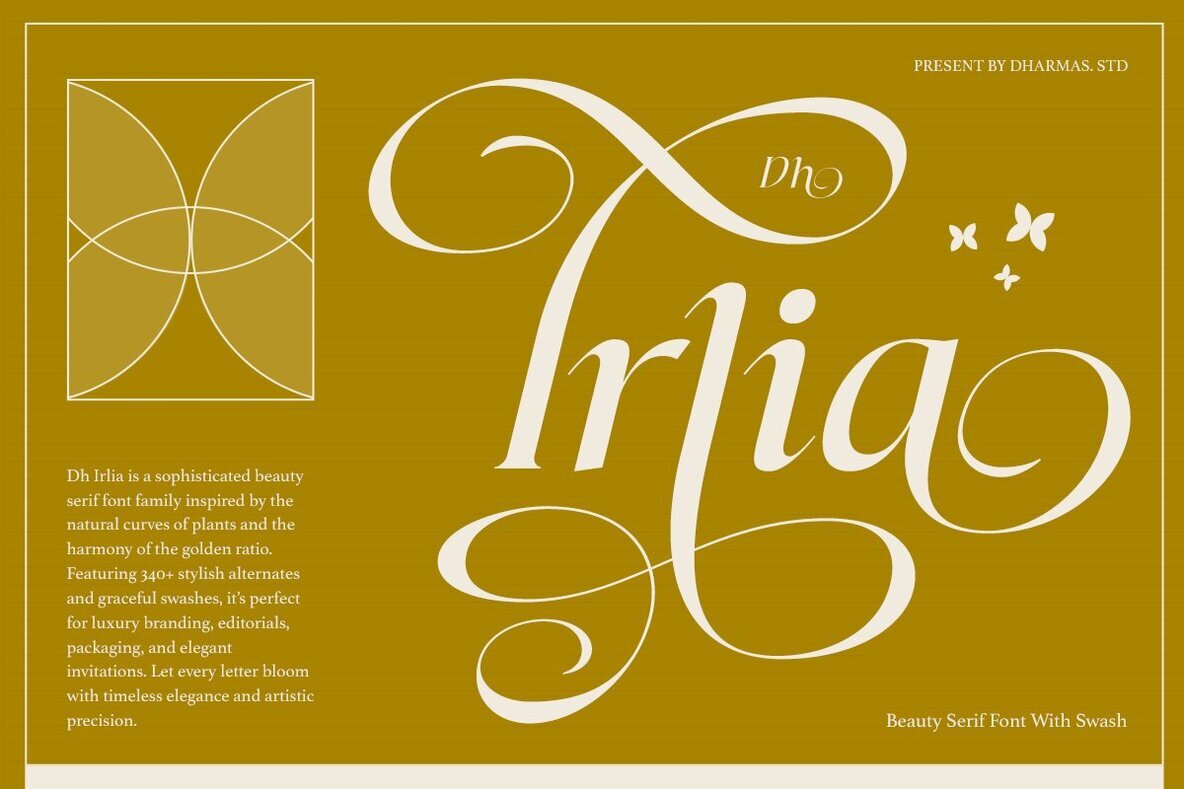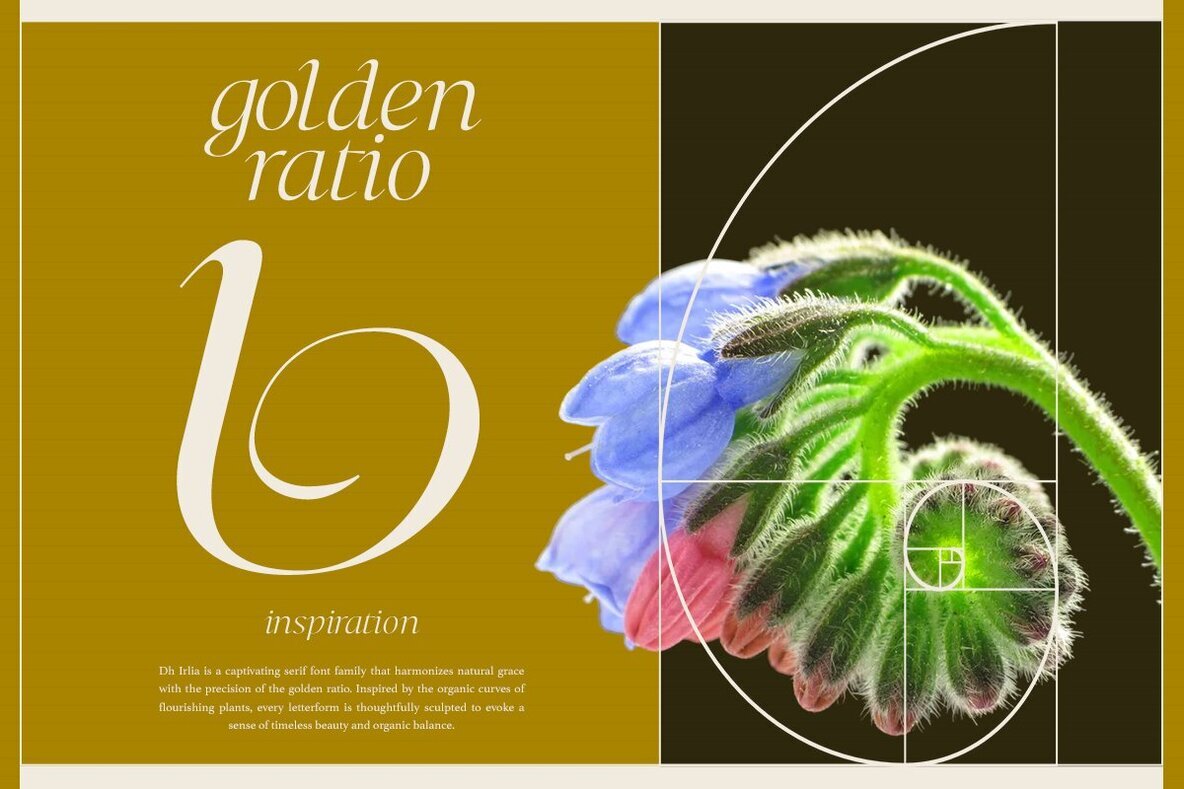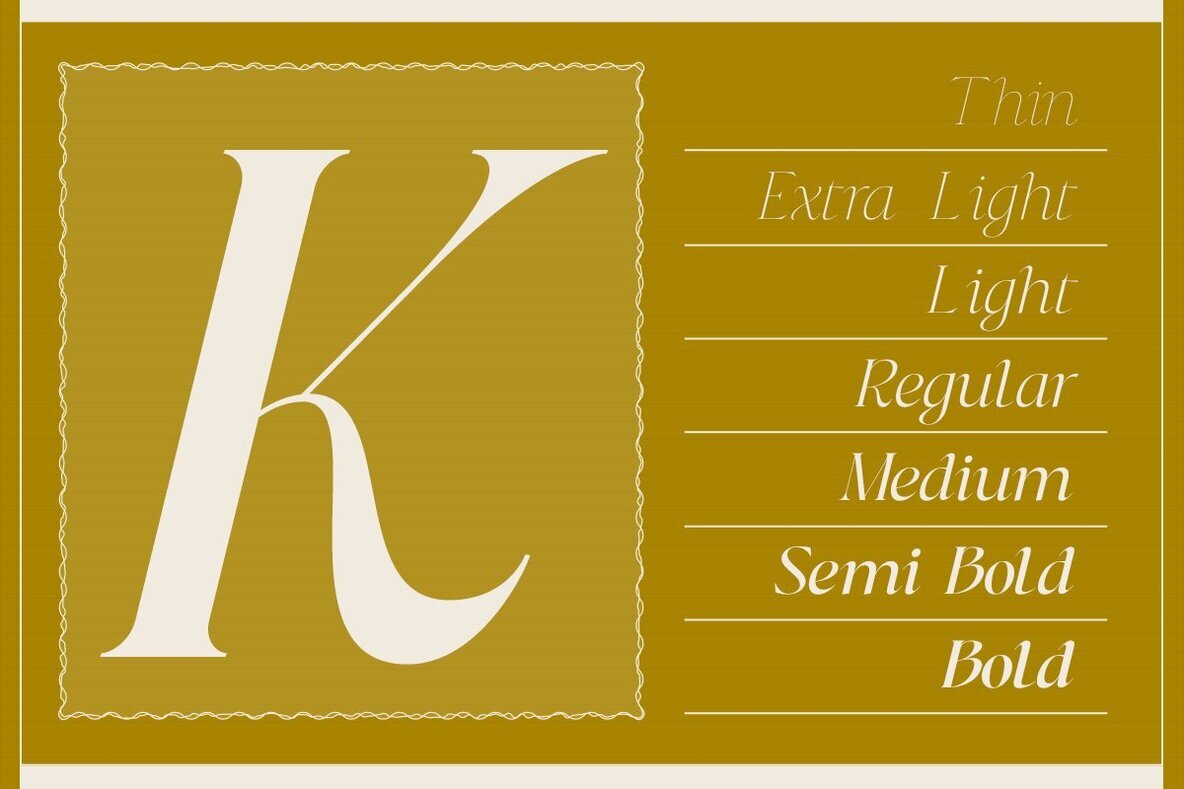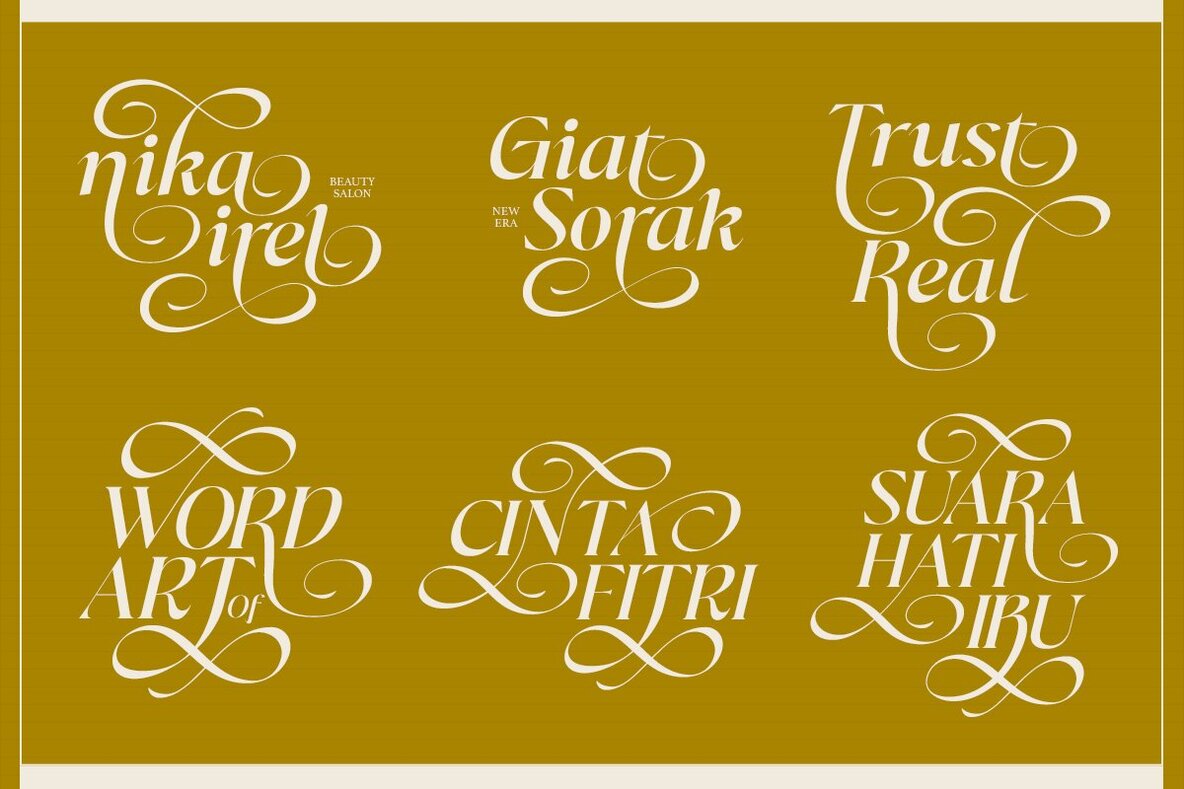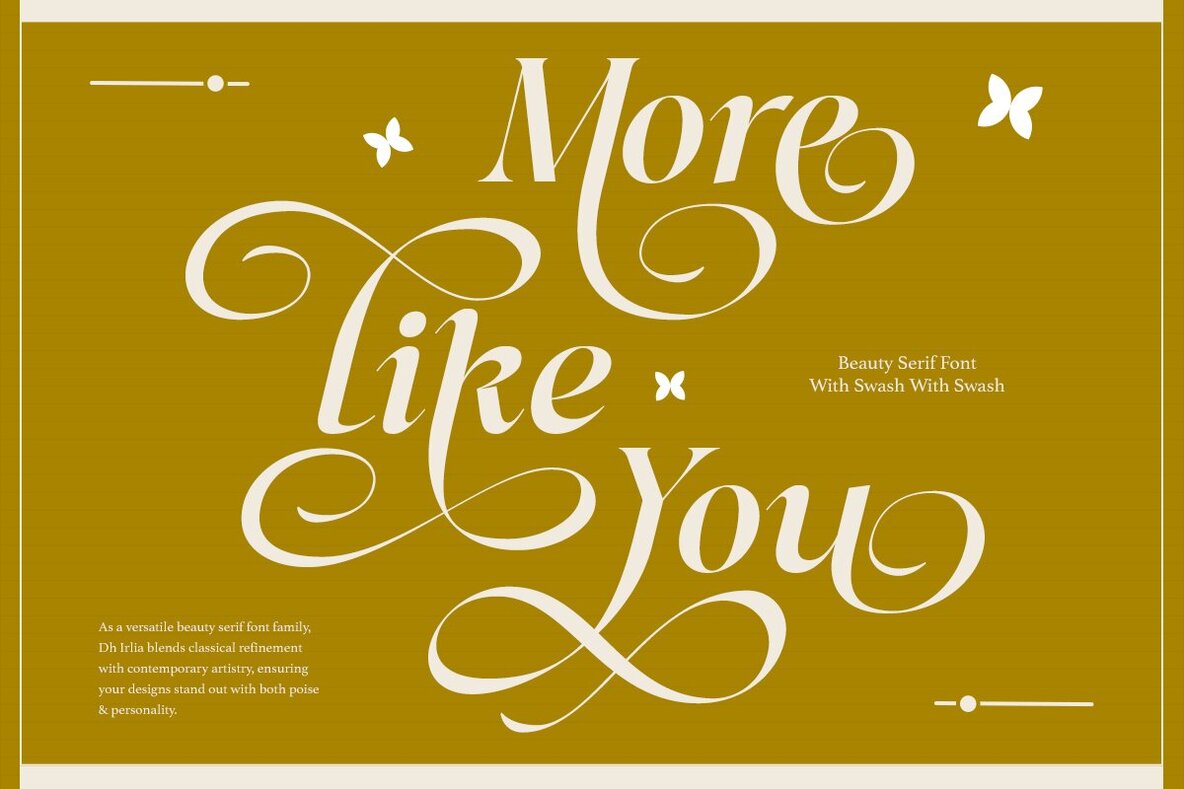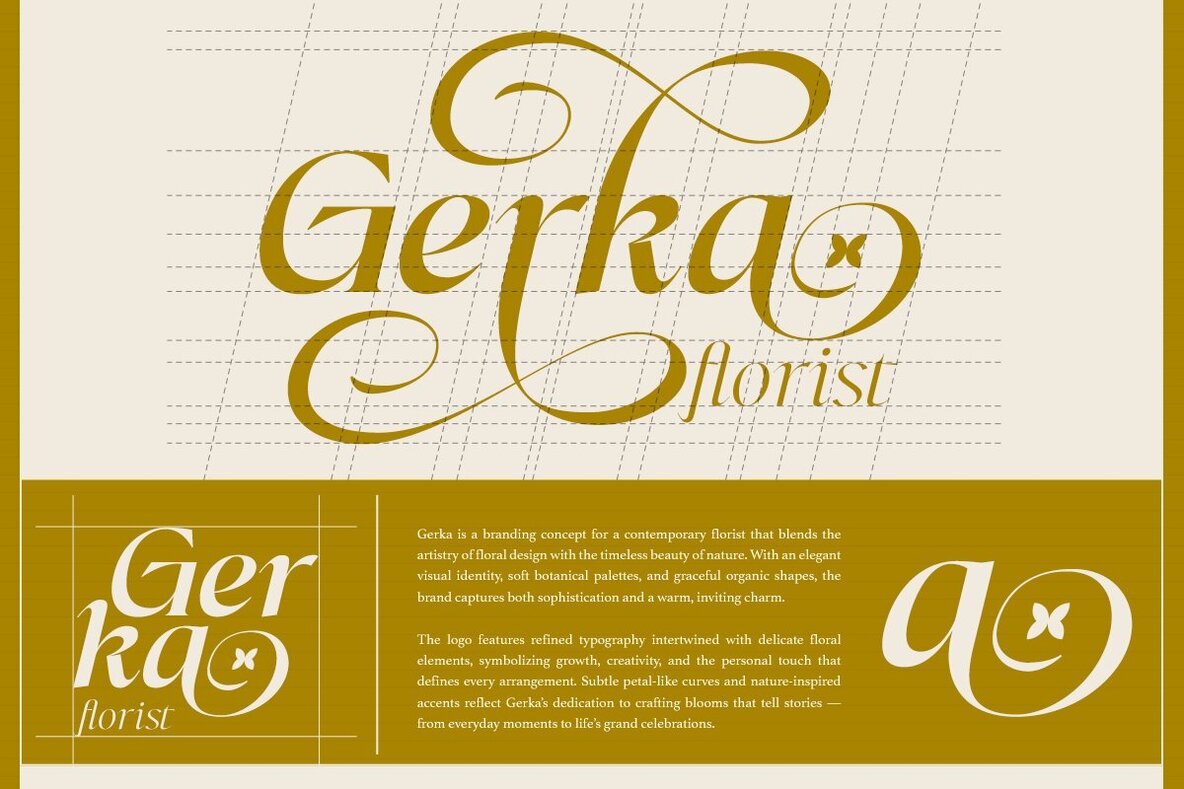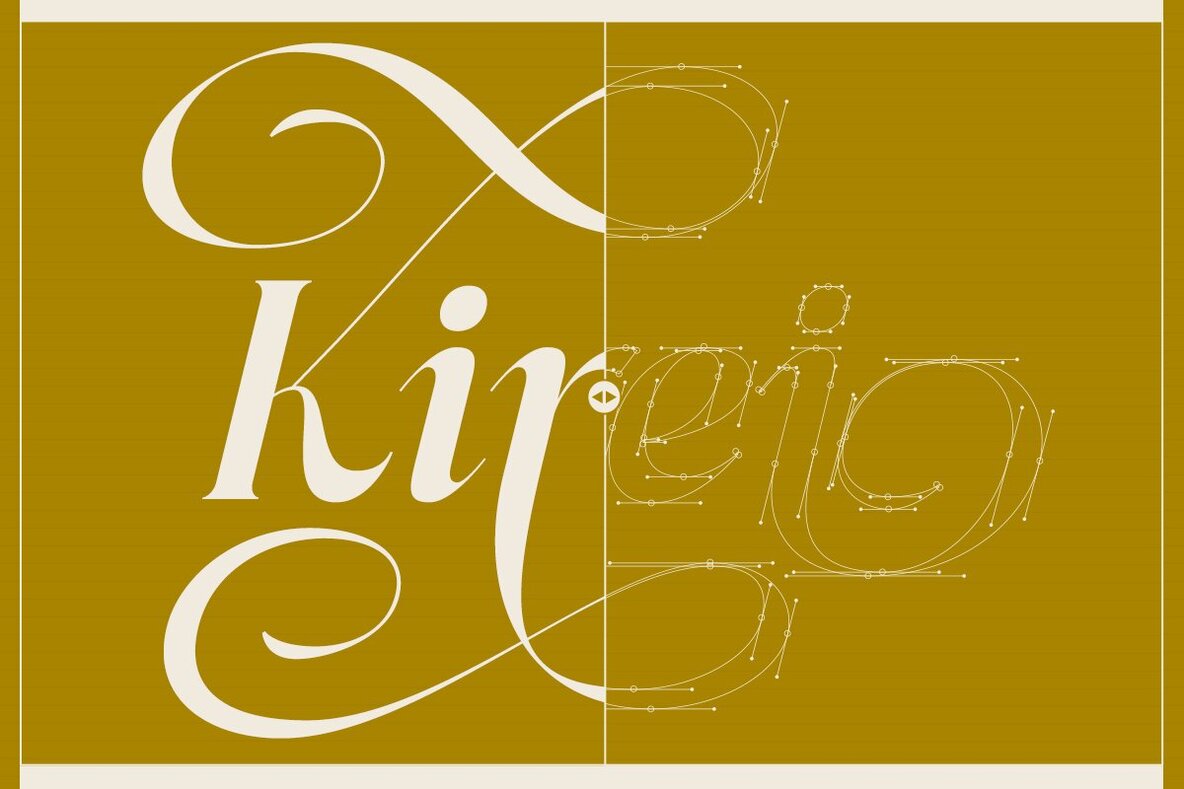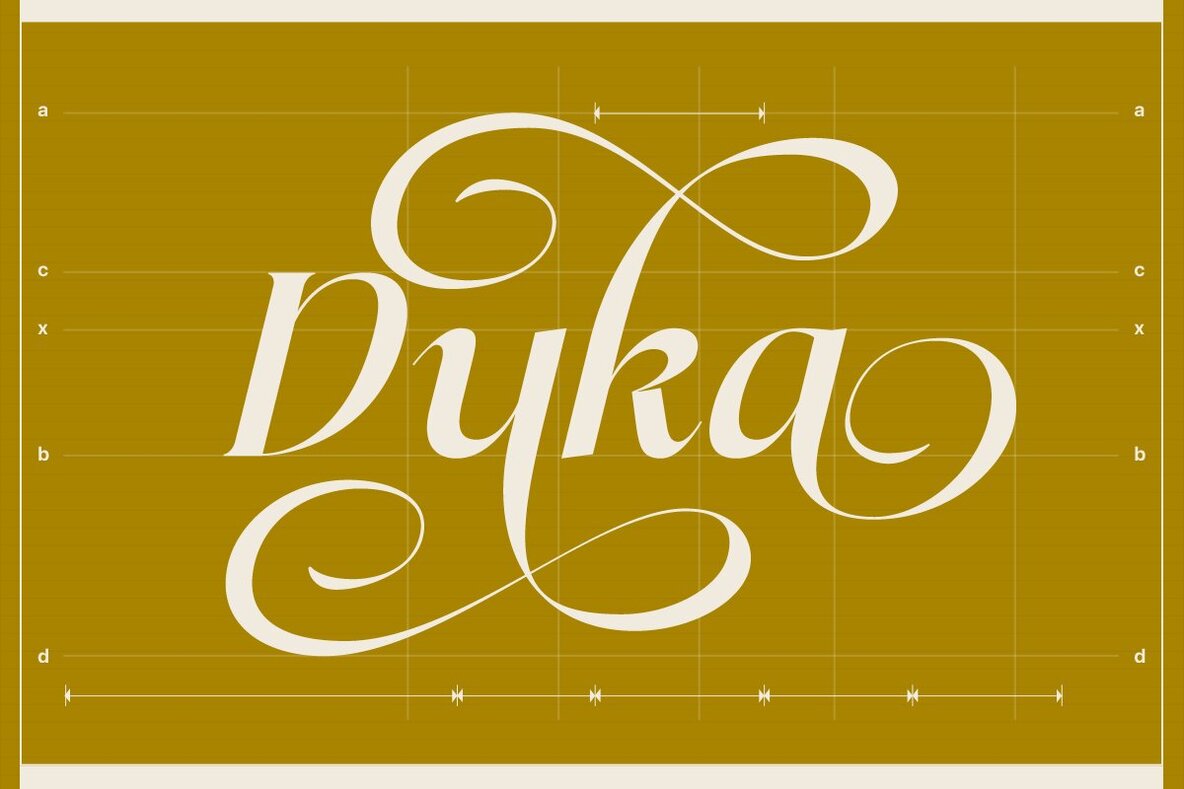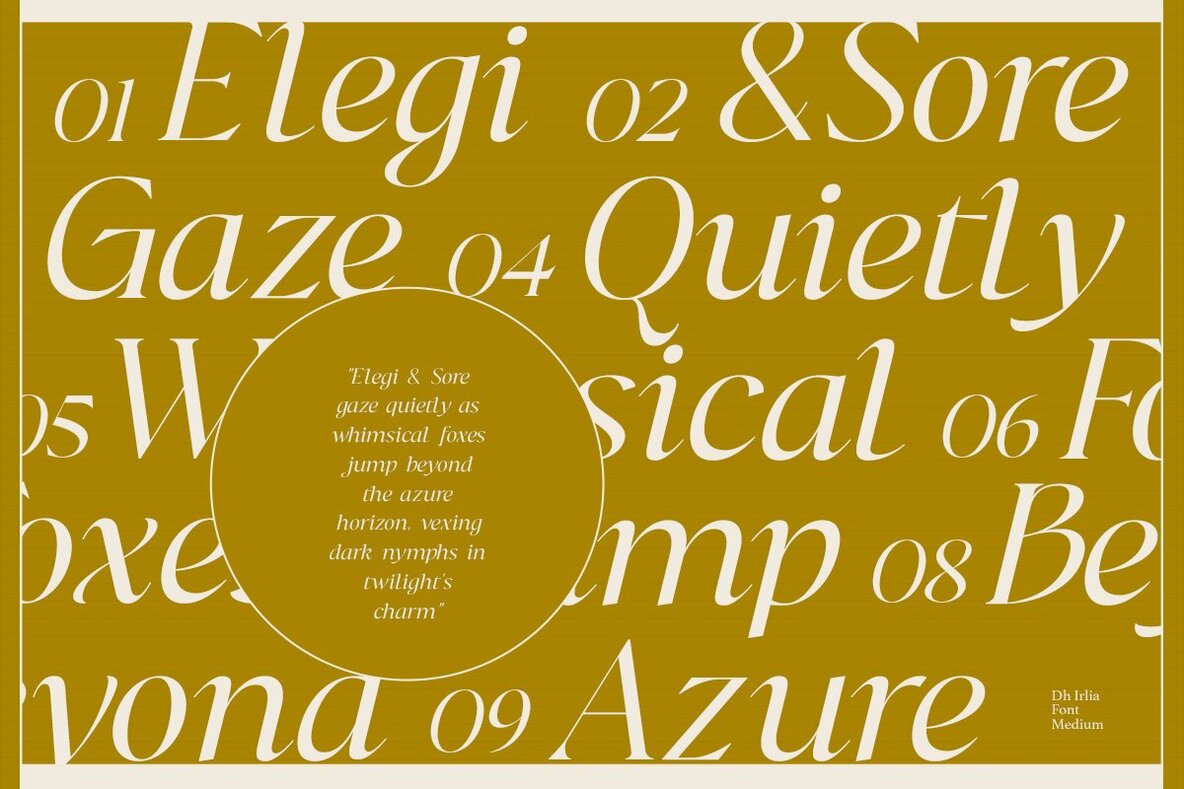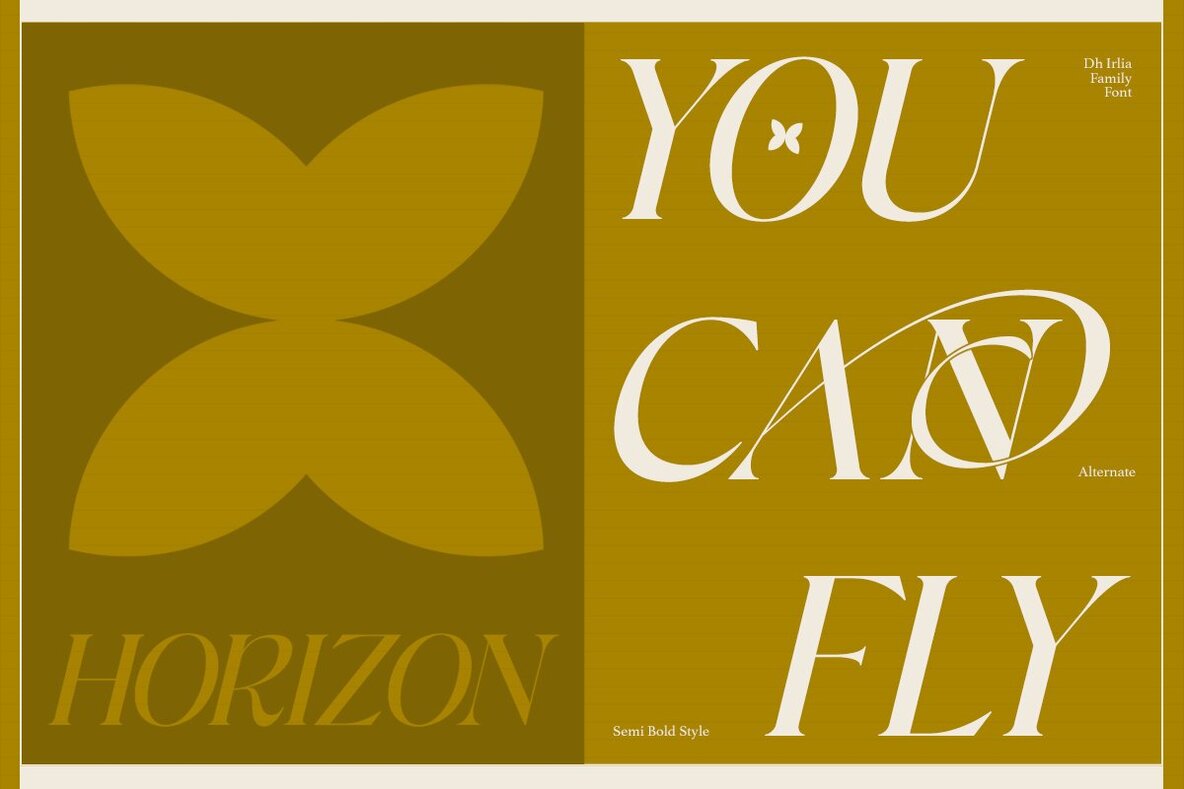
Dh Irlia Font
Dh Irlia is a sophisticated serif typeface family that embodies fashion-forward elegance and expressive swashes. Its refined curves and graceful strokes, paired with a luxurious aesthetic, make it ideal for branding, fashion editorials, beauty packaging, wedding invitations, and high-end promotional design. Drawing from classical inspiration with a touch of modern refinement, this typeface is a timeless addition to any creative project. With its exquisite balance of delicacy and boldness, Dh Irlia offers versatile typographic expression, making it an excellent choice for projects that require a touch of charm, luxury, and sophistication.Dh Irlia Serif Typeface Family